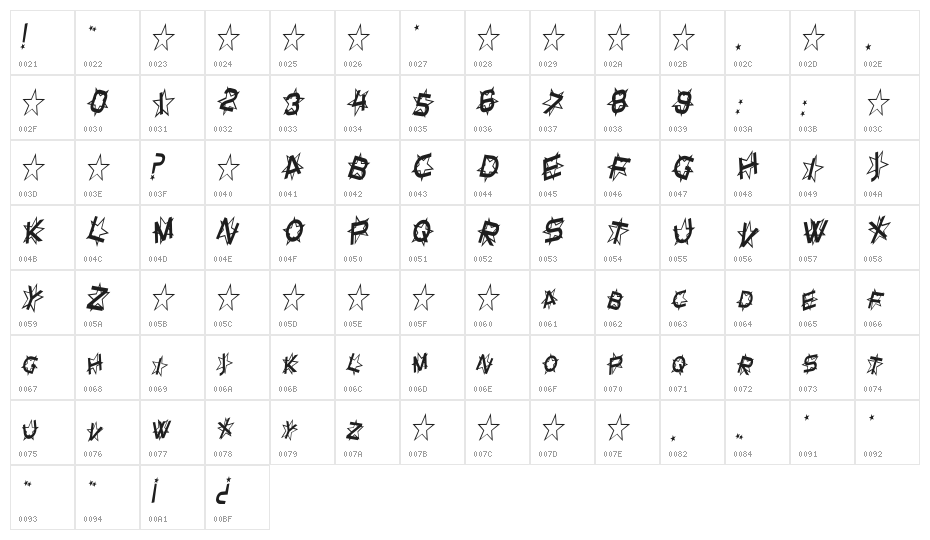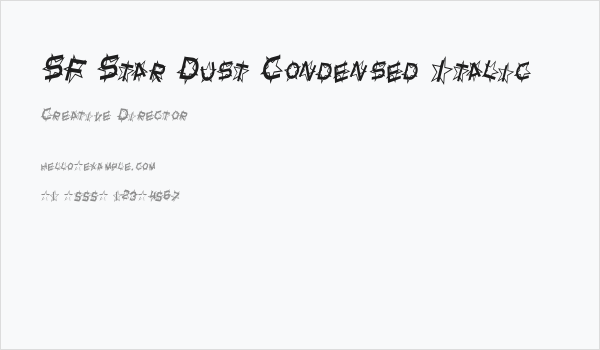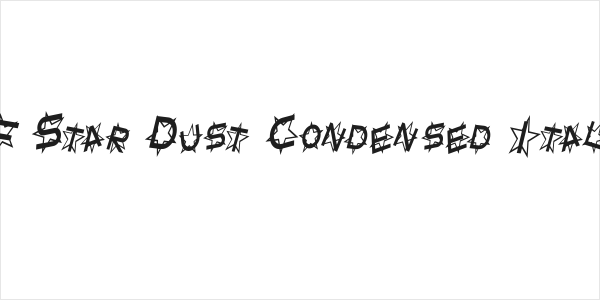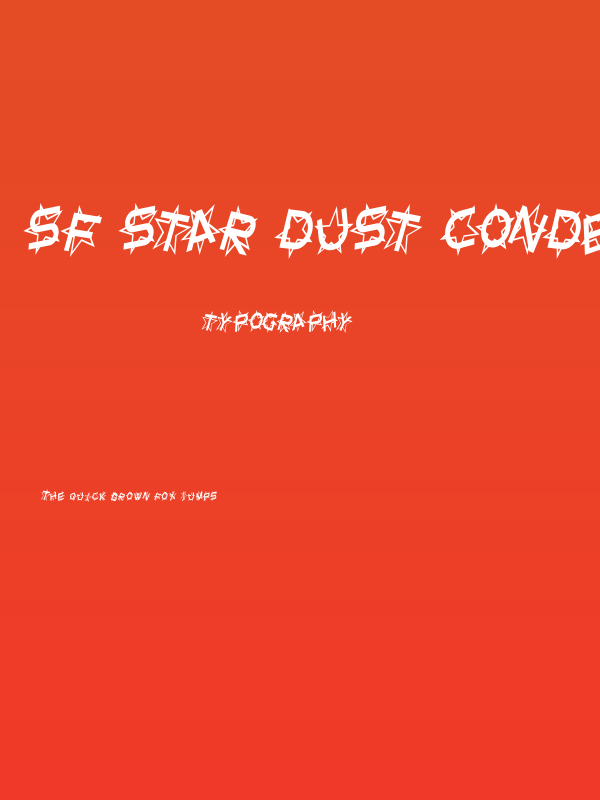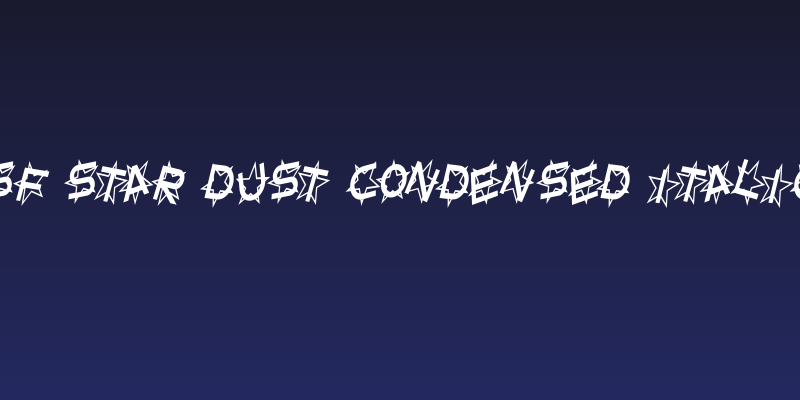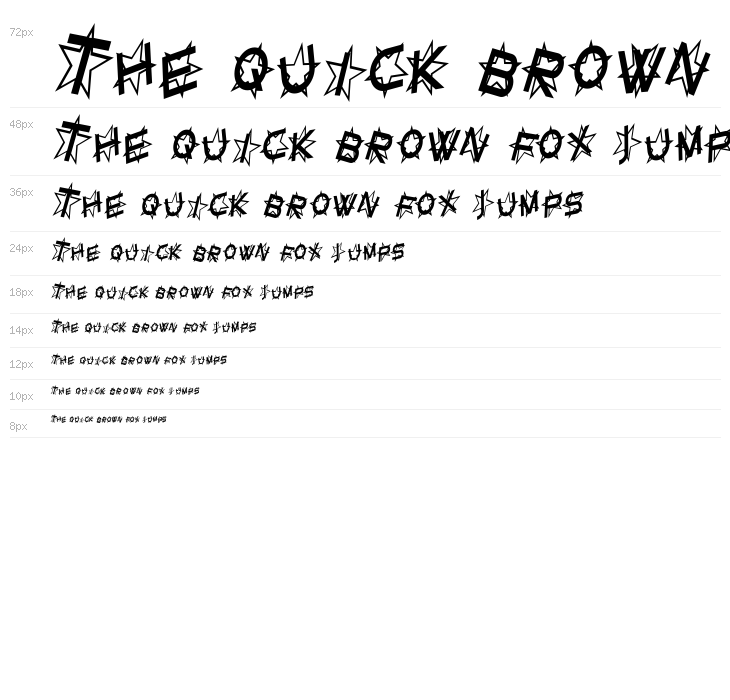
SF Star Dust Condensed Italic Font
SF Star Dust Condensed Italic Description
This font features a bold, edgy design with star-like embellishments integrated into each character. The angular, sharp edges give it a dynamic and energetic feel, making it stand out with a unique flair. The condensed style enhances its compactness, while the italic slant adds a sense of motion and urgency. The characters are tightly spaced, contributing to its striking appearance. The font includes both uppercase and lowercase letters, numerals, and a selection of special characters, all maintaining the star-themed aesthetic. Its high contrast in stroke thickness further emphasizes its boldness, making it ideal for attention-grabbing designs.
| Proposed Projects | Perfect for music album covers, event posters, or any project needing a bold, energetic typeface. |